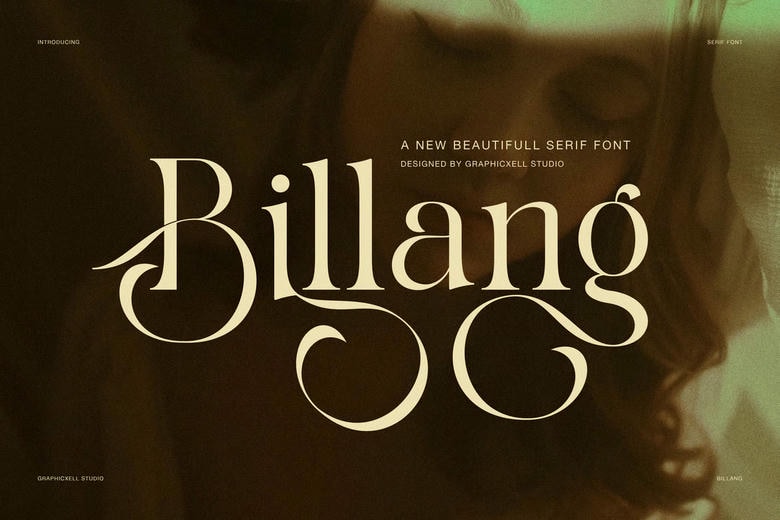
Billang Font
Billang Font is a sophisticated traditional serif font designed in sophisticated visual design. It combines soft forms with heavy serif, and this feature provides all letters with a harmonized and classic appearance. Due to this balance, there is a vintage and contemporary font. At the very sight of it, Billang exudes quality and style.
Billang Serif Font